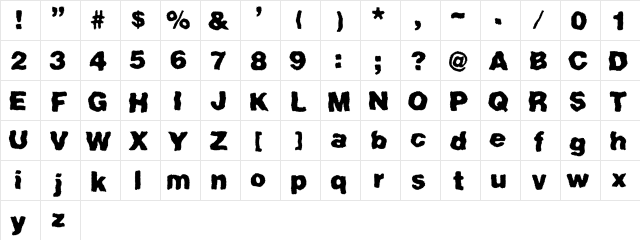
Hatchett Regular
Design Context for Hatchett Typeface
Hatchett is a composed and adaptable typeface that performs quietly and consistently across a wide range of design contexts.
Pro Tip: Use Hatchett in both headline and body roles to test its range before committing to a single application.